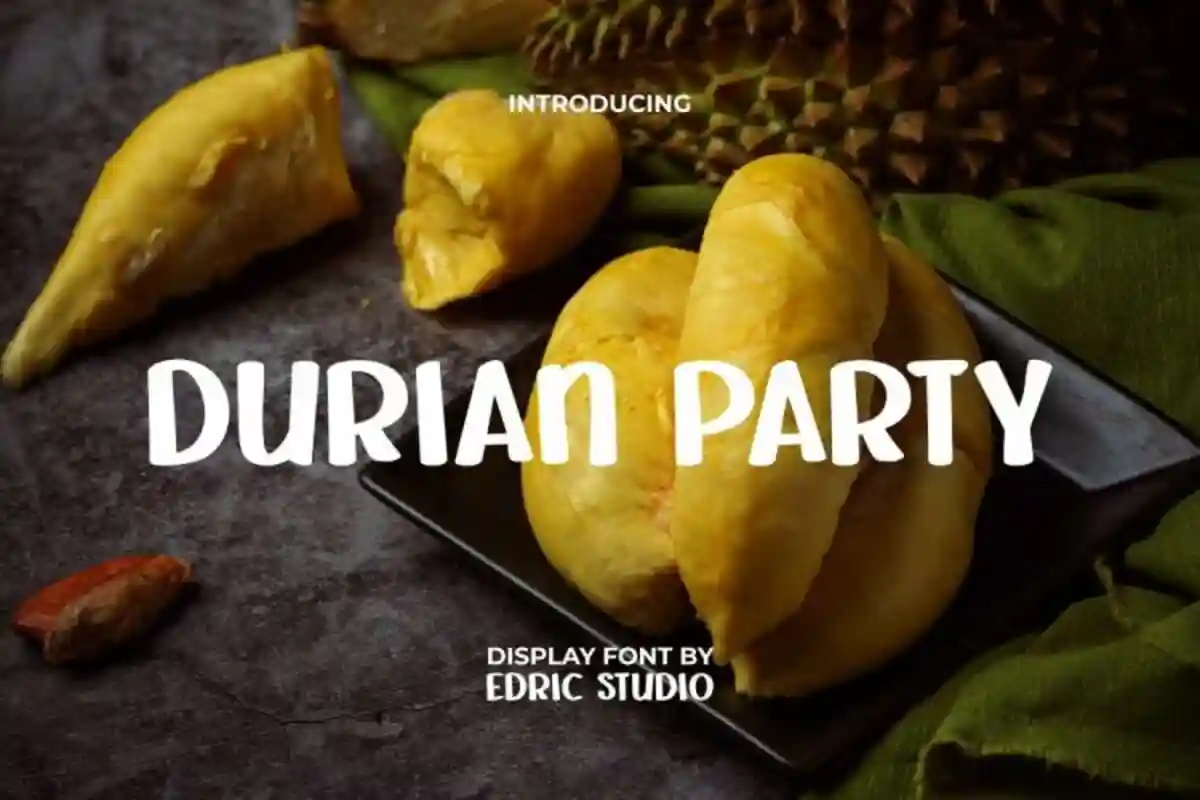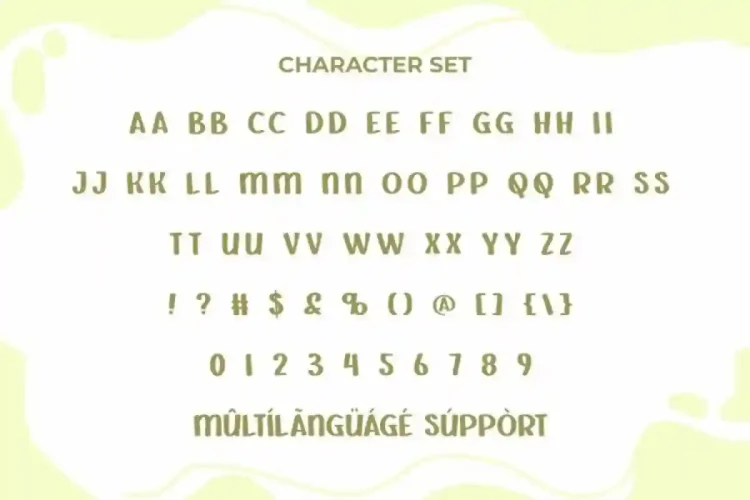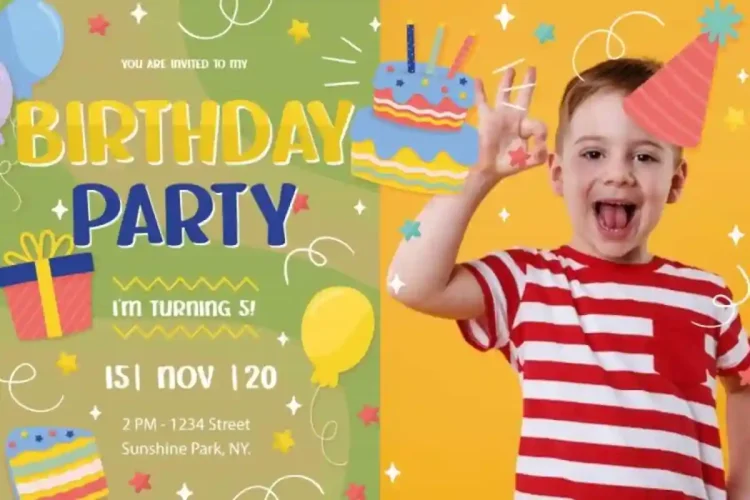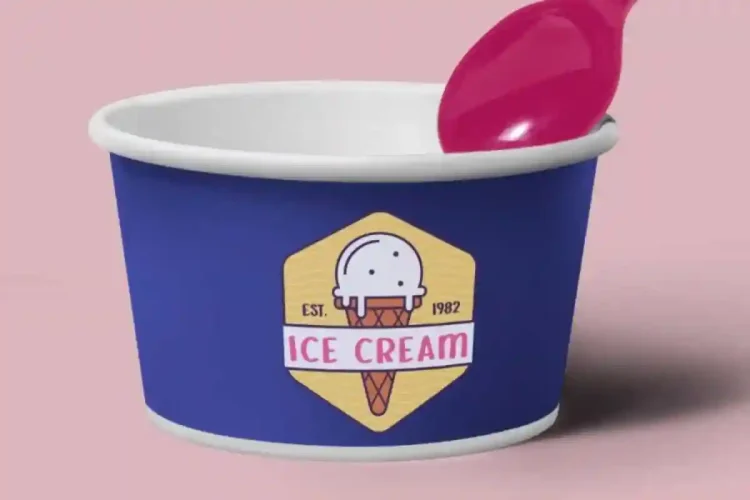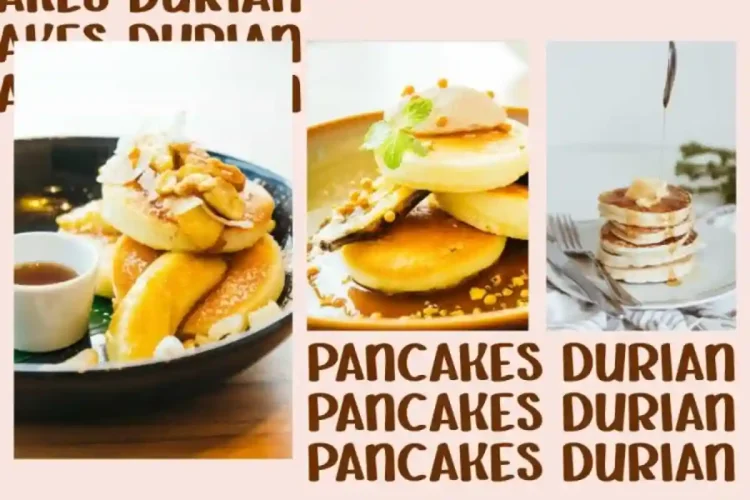
Durian Party Display Font a playful foody display typeface inspired by the lively spirit of the king of fruits. Its bold yet cute appearance makes it an excellent choice for businesses in bakery, café, kids’ products, fashion, event organizers, marketing, publishing, photography, printing, and more.
Durian Party Display Font comes with full set of ALL CAPS for Uppercase and Lowercase Basic Characters, Number, a large range of Punctuation, and Symbol. It has funny characters set, perfectly managed with well spaced and kerning.